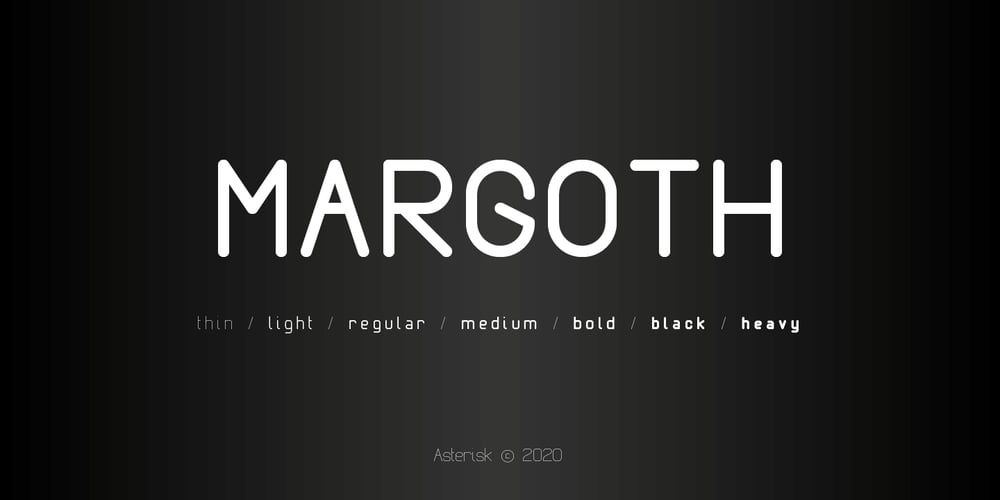
Margoth Font Family was designed by Mikhail Kosmosov and published by Asterisk. Margoth contains 7 styles and family package options. Margot font family, has more than 1000 + glyphs in each font. The font includes advanced language support, fractions, table shapes, ligatures, and more. Perfect for graphic design and any display use. It can easily work for websites, signage, corporate, and editorial design. documents and folders, mobile interface.